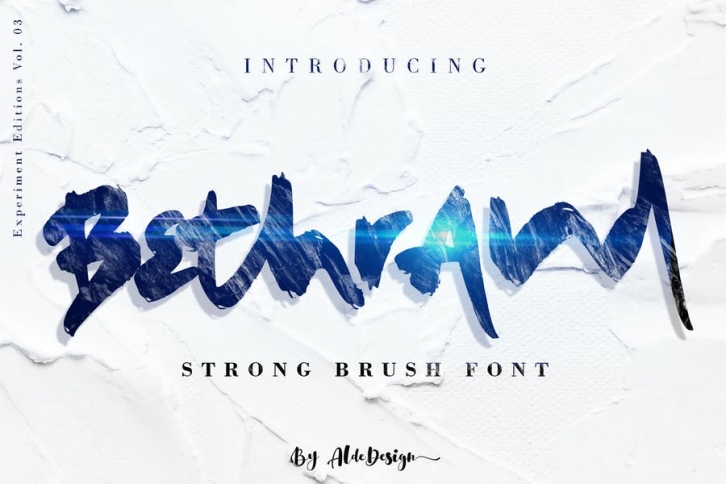
Bethrand // Strong Brush Stunning Strong Brush Font - A quirky brush and unique new handwritten brush script.
This font is for those who want to show something strong and modern. You may use this font if you want to attract modern buyers. The font design seems to show that you have a passion for the business and give your love to the products and services you are offered to customers.
Because it is an eye-catching bold script font, you can use it for a variety of purposes including design, branding, signature, logo, poster, and many more.